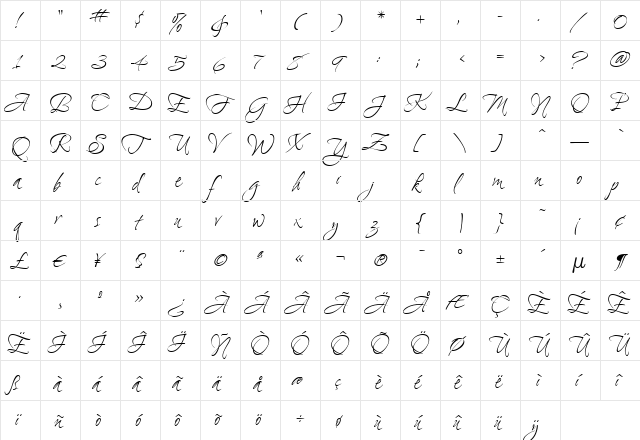
Ambiance BT Swash Light
Design Context for Ambiance BT Swash Typeface
Ambiance BT Swash brings a calligraphic fluidity to the page — its connecting strokes and expressive curves give it an unmistakably human quality. The delicate stroke weight brings airiness and refinement to layouts.
Font Pairing: Combine Ambiance BT Swash with a simple geometric sans for maximum contrast — the tension between flowing curves and clean structure is a classic typographic pairing.
Pro Tip: Use Ambiance BT Swash for short runs of text — names, titles, or taglines. Extended body copy in script faces tires the eye quickly.